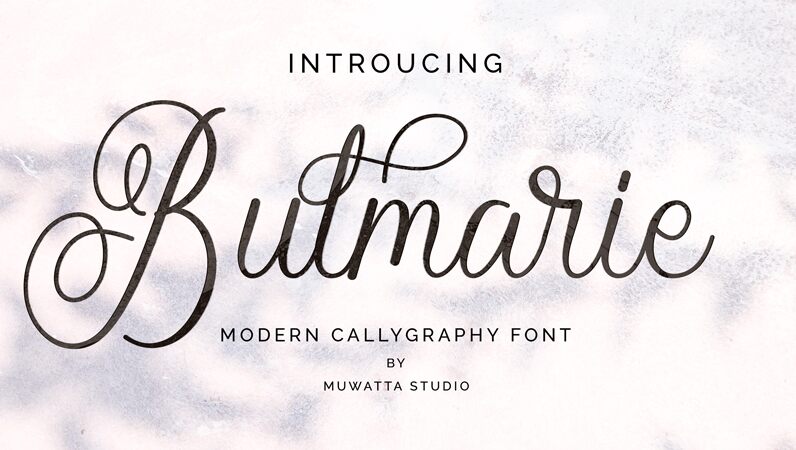
Bulmarie Script is a sweet and delicate handwritten font. Dainty and joyful, this font will be ideal for writing wedding invitations, cards, or any other design that may need a romantic, personalized touch!
Bulmarie Script Features:
Uppercase
Lowercase
Number & Puntuaction
- Multilingual
- Alternates
- Swash